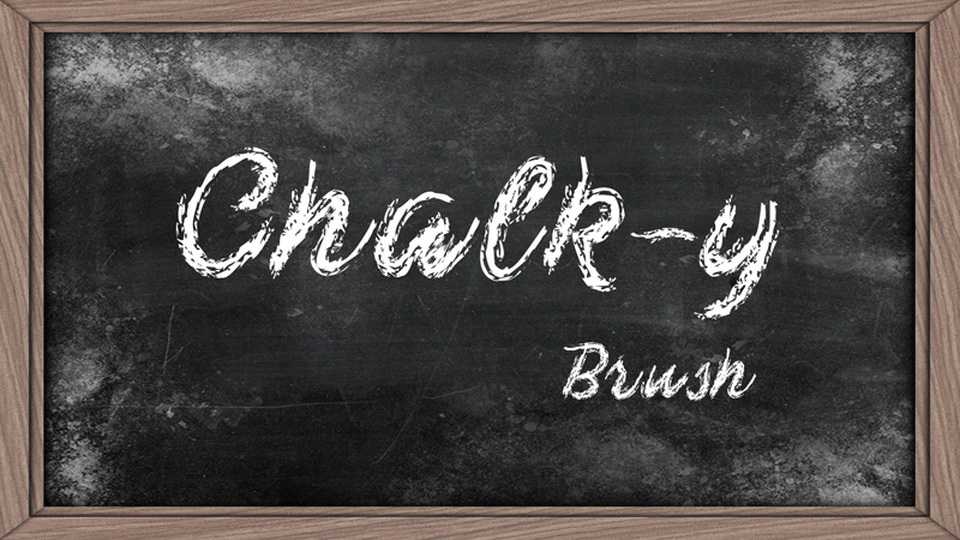
Download Chalk-y Brush font, a hand drawn chalk typeface with a realistic textured look. Chalk-y Brush is perfect for any project related to school, restaurants, bars, pubs and many other.
Designer: Ştefancu Gabi